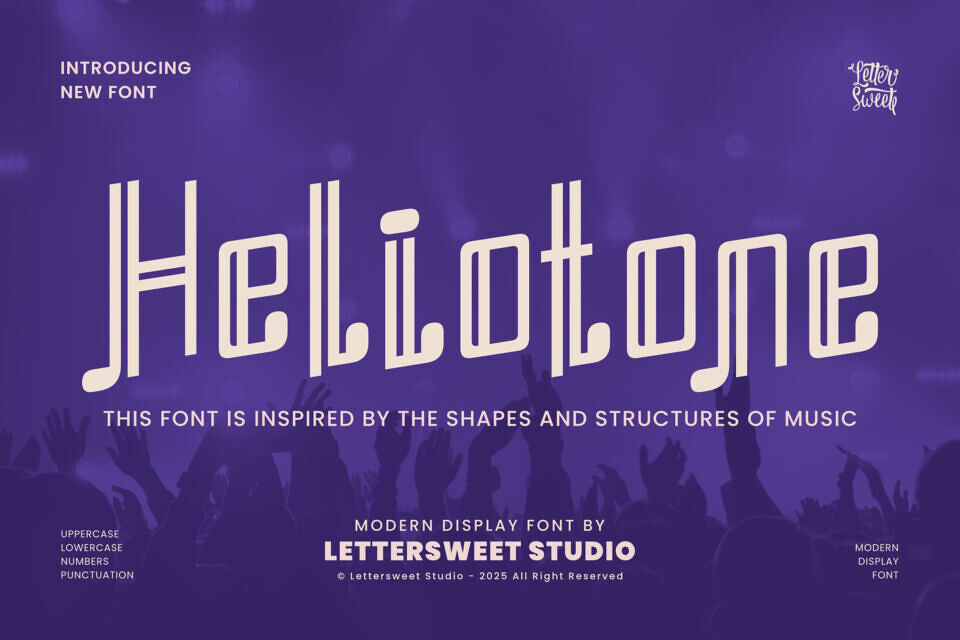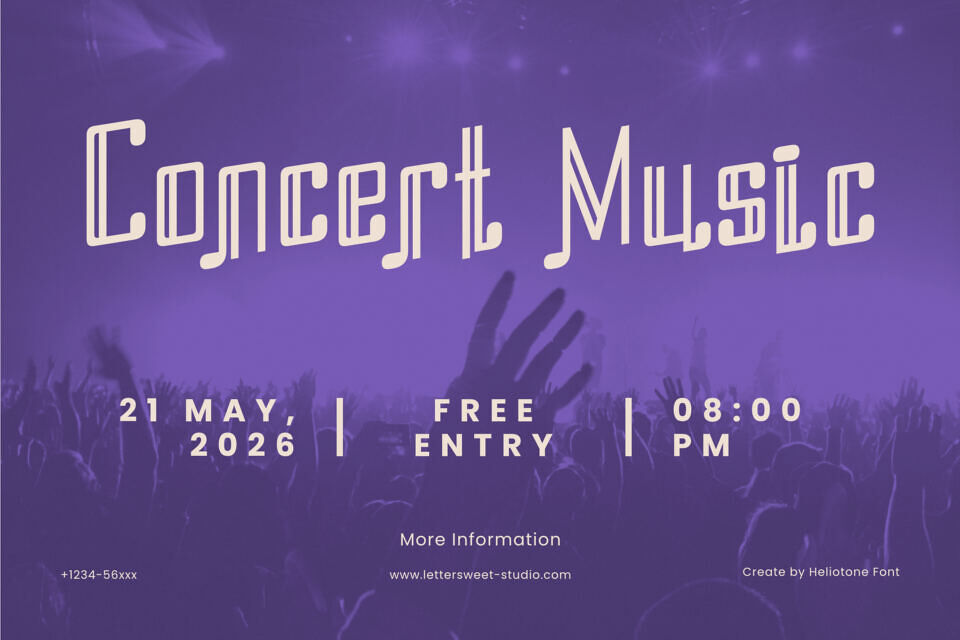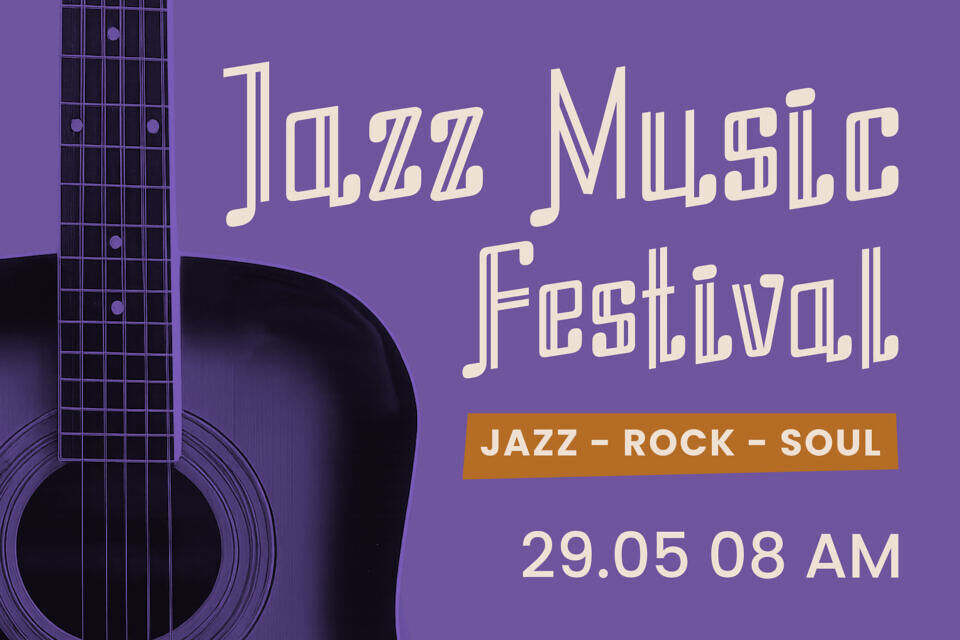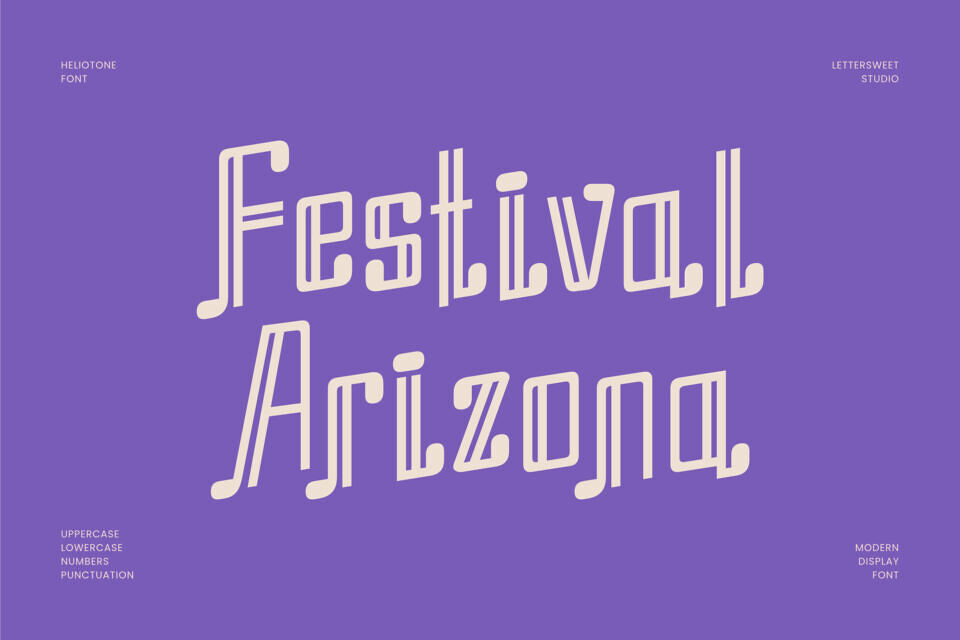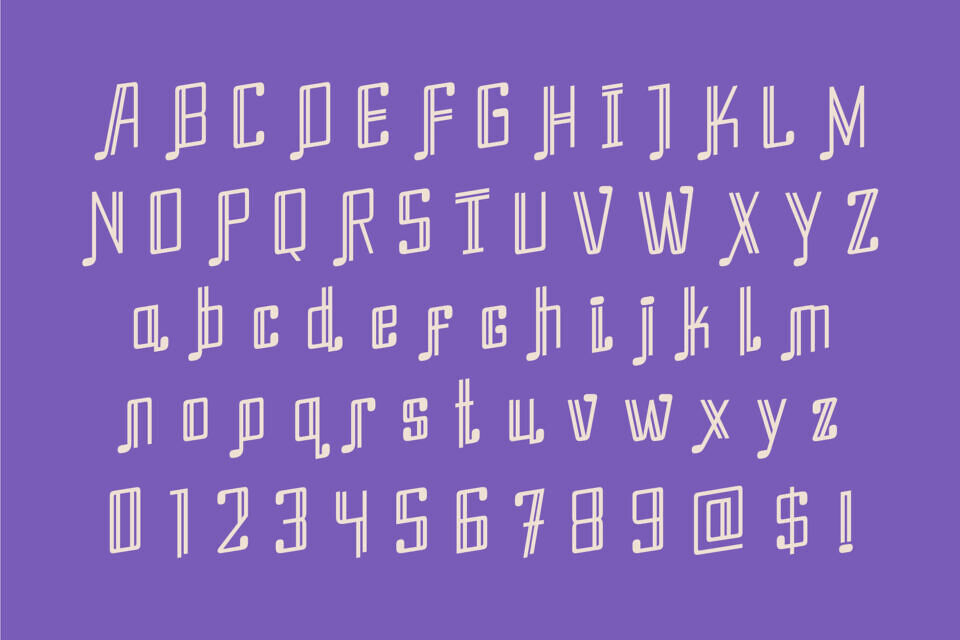
Heliotone Font
Heliotone is a modern music display font with a bold, futuristic groove—perfect for anyone who wants their design to feel like a live concert. Tall letterforms, clean geometric lines, and rounded terminals create a rhythmic flow that looks like sound waves frozen in motion. It instantly brings an energetic, festival-ready vibe to any project.
Use Heliotone for music festival posters, DJ and band logos, album covers, club flyers, streaming cover art, event tickets, YouTube thumbnails, or any headline that needs to stand out on stage and on screen. Its condensed shapes make it easy to fit long titles while still staying readable and stylish